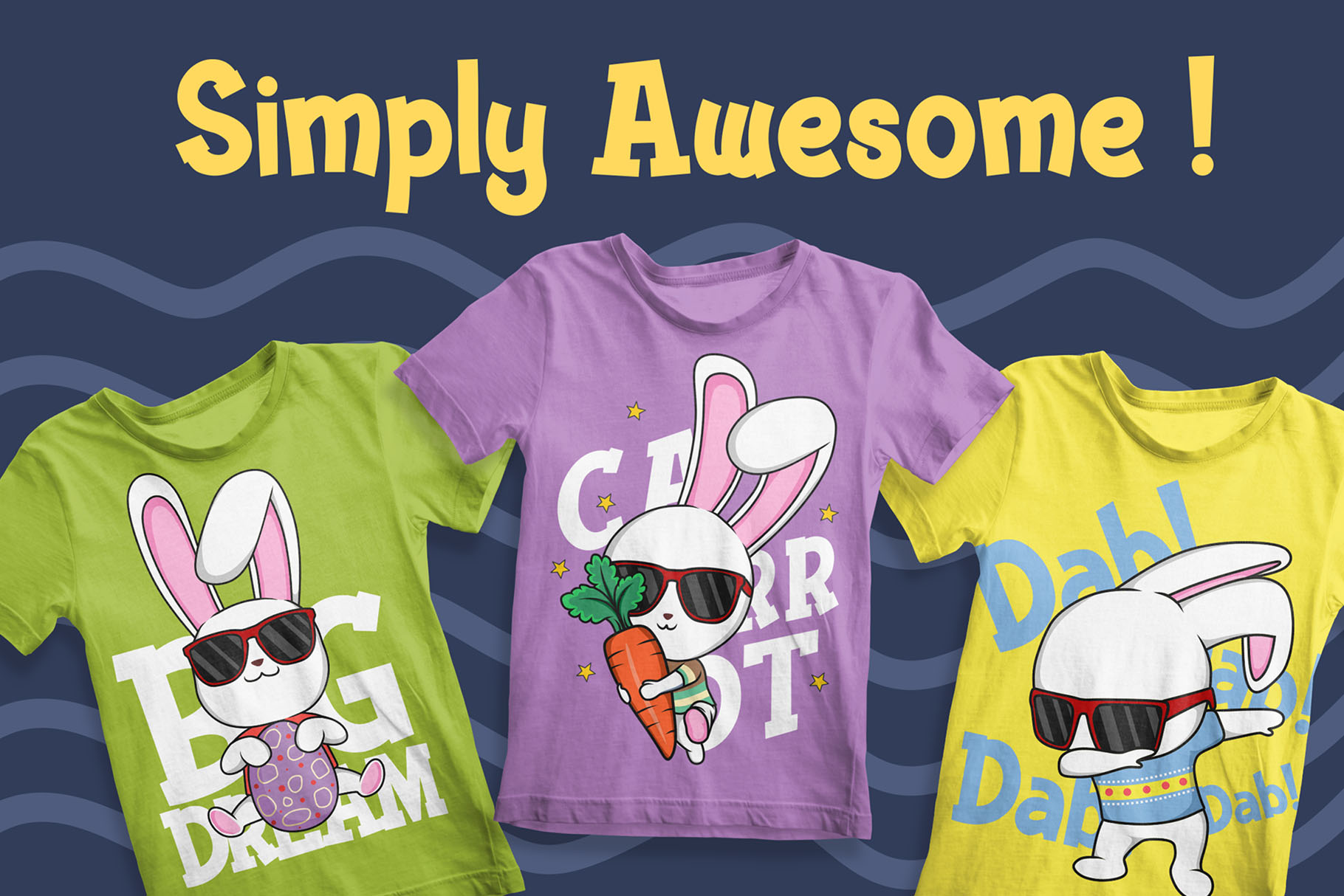
Funkie Bunny
Funkie Bunny Easter Font for Joyful Seasonal Design
Funkie Bunny Easter font is a fancy, cheerful font inspired by the joy of rabbits and the playful feeling of Easter. Designed for creative projects that need warmth, charm, and a friendly seasonal personality, Funkie Bunny brings a lively visual touch to designs that feel fun, sweet, and easy to love.
This font is made for designers, crafters, brand owners, content creators, packaging designers, and digital product sellers who want their work to feel more expressive without becoming too complicated. Its playful character makes it a natural choice for Easter promotions, spring collections, handmade goods, children’s products, cheerful merchandise, and quote-based visuals.
Funkie Bunny also comes with 7 awesome illustrations, giving you more room to build complete compositions around the font. You can pair the lettering with bunny-inspired graphics for labels, stickers, social media designs, greeting cards, t-shirt artwork, packaging layouts, and seasonal branding projects.
Funkie Bunny has a fancy and joyful personality. It carries a lighthearted mood that works especially well for designs connected to celebration, happiness, gifts, and handmade creativity. The rabbit and Easter inspiration gives the font a sweet seasonal identity, while the fancy style helps it stand out in decorative headlines and display-focused layouts.
This is the kind of font that feels friendly at first glance. It is expressive enough for statement graphics, but still practical for many common design needs. Use it when your project needs a festive voice, a playful brand moment, or a decorative type style that feels warm rather than formal.
For seasonal products, Funkie Bunny can help build a memorable visual theme. It fits beautifully into Easter egg hunt graphics, bunny-themed packaging, spring craft products, children’s event materials, bakery labels, small shop promotions, and handmade product branding. It also works nicely for cheerful quote layouts where the typography needs to feel charming and approachable.
Funkie Bunny is perfect for projects that need a joyful and decorative font with a clear Easter-inspired mood. It can be used for quotes, logotypes, badges, labels, packaging, t-shirts, and many other creative design projects.
For branding, Funkie Bunny can add a playful touch to small businesses, seasonal product lines, handmade shops, children’s brands, bakeries, gift packaging, and craft-based products. Its cheerful tone makes it suitable for designs that need to feel welcoming and memorable.
For merchandise, this font is a strong option for t-shirt graphics, tote bags, stickers, mugs, printable wall art, greeting cards, and digital downloads. The included illustrations give you additional creative assets to build fuller layouts without starting from a blank page.
For social media and quote design, Funkie Bunny can help create posts that feel fun, bright, and seasonal. Use it for short phrases, Easter captions, promotional graphics, cheerful announcements, and playful visual content for shops or creators.
• Fancy font inspired by rabbits and joyful Easter
• Suitable for quotes, logotypes, badges, labels, packaging, and t-shirt designs
• Includes 7 awesome Funkie Bunny illustrations
• Useful for seasonal, playful, craft, packaging, and merchandise projects
Designers love fonts that help a project find its mood quickly. Funkie Bunny does exactly that. Its Easter-inspired character gives your design an instant seasonal direction, while the fancy lettering style adds personality to headlines, product names, and decorative layouts.
It is especially useful when you need more than just a typeface. Because Funkie Bunny includes 7 illustrations, you can create richer compositions for packaging, apparel, labels, stickers, and printable designs. The font and illustration set can work together as a visual toolkit for building festive, bunny-themed artwork.
For brand owners and small shops, Funkie Bunny can make seasonal products feel more polished. A simple label, tag, or social media post can feel more intentional when the typography matches the mood of the campaign. For crafters and digital sellers, the included illustration formats give added flexibility for creative product ideas.
Funkie Bunny is also practical for designers who create client work. It can support playful logotypes, promotional graphics, packaging concepts, and seasonal event materials without requiring a highly formal visual tone. It feels joyful, friendly, and easy to adapt across different creative formats.
Use it to build Easter campaigns, handmade product graphics, cute merchandise, printable artwork, and playful brand visuals that feel warm, memorable, and full of character.